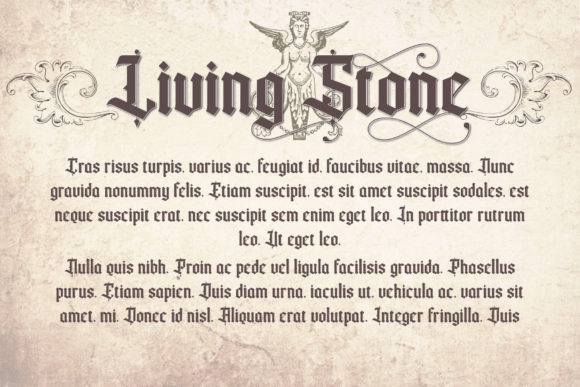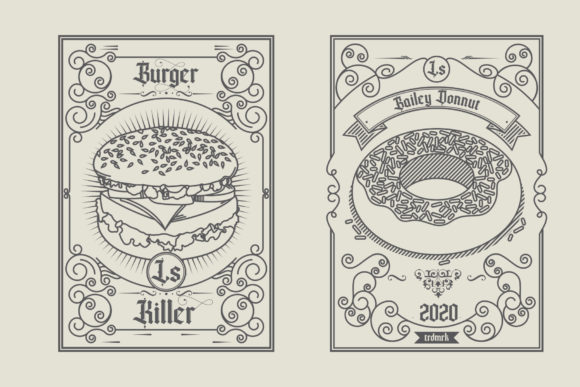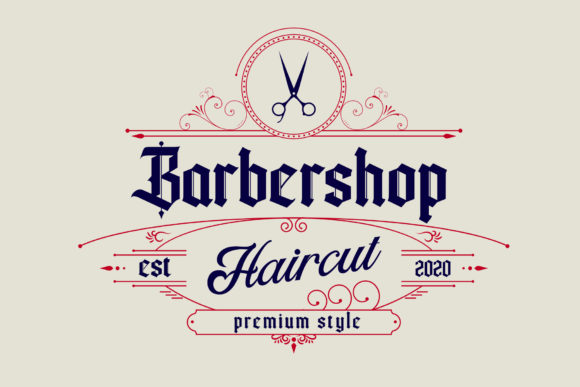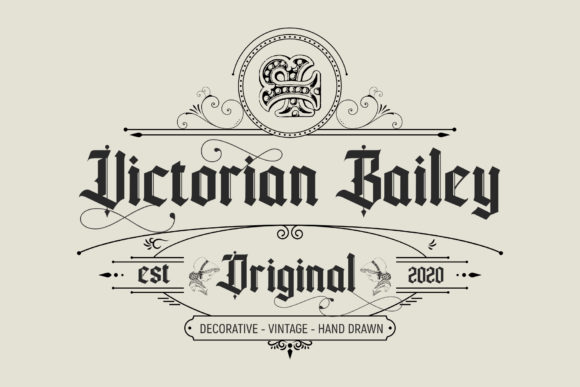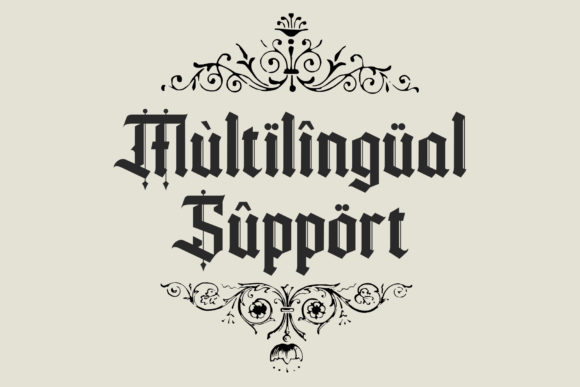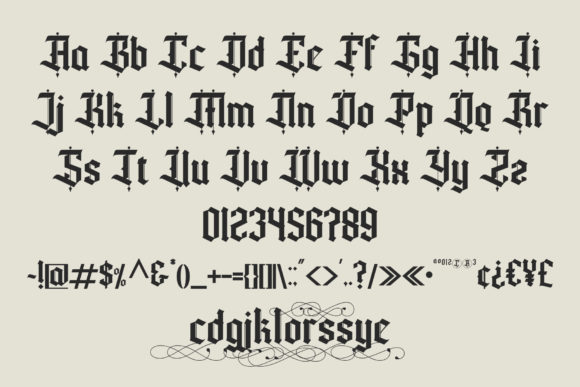
Introducing Bailey Barker Font: The Ultimate Blackletter Typeface
Are you tired of using the same old fonts for your creative projects? Look no further! Bailey Barker Font is here to revolutionize your designs with its bold and authentic blackletter style. Masterfully crafted to become a true favorite among designers and crafters, this font has the potential to bring each of your creative ideas to the highest level.
What is Bailey Barker Font?
Bailey Barker Font is a bold and authentic blackletter font that exudes confidence and sophistication. Its unique design elements make it perfect for a wide range of creative projects, from logos and branding to packaging and advertising. With its strong and striking appearance, Bailey Barker Font is sure to grab attention and leave a lasting impression.
Key Features of Bailey Barker Font
- Bold and Authentic Blackletter Style: Bailey Barker Font features a traditional blackletter design with a modern twist, making it perfect for designers looking for a unique and eye-catching font.
- Highly Versatile: This font can be used for a wide range of creative projects, from logos and branding to packaging and advertising.
- Easily Readable: Despite its bold and ornate design, Bailey Barker Font is surprisingly easy to read, making it perfect for body text and headlines.
Why Choose Bailey Barker Font?
So why choose Bailey Barker Font over other fonts on the market? Here are just a few reasons:
- Unique Design: Bailey Barker Font features a unique and authentic blackletter design that will set your creative projects apart from the competition.
- High-Quality: This font is masterfully crafted with attention to detail, ensuring a high-quality design that will impress your audience.
How to Use Bailey Barker Font
Using Bailey Barker Font is easy! Here are a few tips to get you started:
- Pair it with a Sans-Serif Font: Pair Bailey Barker Font with a sans-serif font for a striking contrast that will make your designs pop.
- Use it for Headlines: Bailey Barker Font is perfect for headlines and titles, where its bold and ornate design can really shine.
- Experiment with Different Colors: Bailey Barker Font looks great in a variety of colors, so don’t be afraid to experiment and find the perfect hue for your design.
Who is Bailey Barker Font for?
Bailey Barker Font is perfect for:
- Graphic Designers: Bailey Barker Font is a must-have for graphic designers looking for a unique and versatile font to add to their collection.
- Crafters and DIY Enthusiasts: Bailey Barker Font is perfect for crafters and DIY enthusiasts looking to add a personal touch to their projects.
- Small Business Owners: Bailey Barker Font is a great choice for small business owners looking to create a bold and memorable brand identity.
In conclusion, Bailey Barker Font is a bold and authentic blackletter font that is sure to bring your creative ideas to the highest level. With its unique design, high-quality craftsmanship, and ease of use, this font is perfect for designers, crafters, and small business owners alike. So why wait? Download Bailey Barker Font today and start creating stunning designs that will leave a lasting impression!